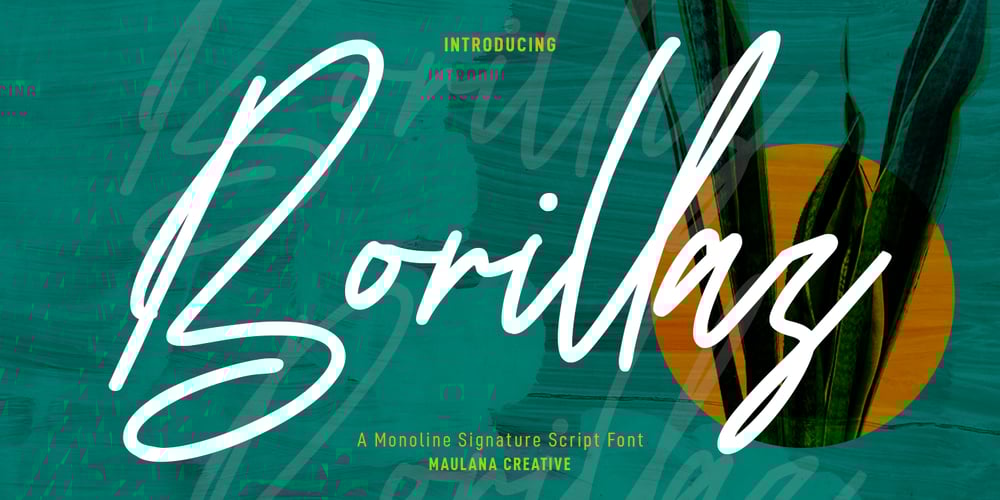
Borillaz Font Family was designed by Gilang Maulana and published by Maulana Creative. Borillaz contains 2 styles and family package options. Borillaz is an expressive signature script font. With slant clean mono-line stroke, fun character with a bit of ligatures and alternates. To give you an extra creative work. Borillaz font support multilingual more than 100+ language. This font is good for logo design, Social media, Movie Titles, Books Titles, a short text even a long text letter and good for your secondary text font with sans or serif. Make a stunning work with Borillaz font. Cheers,Maulana Creative